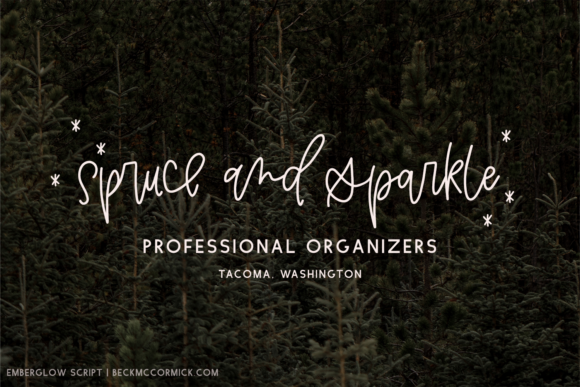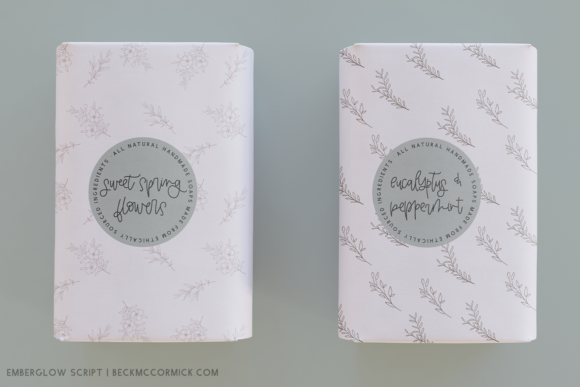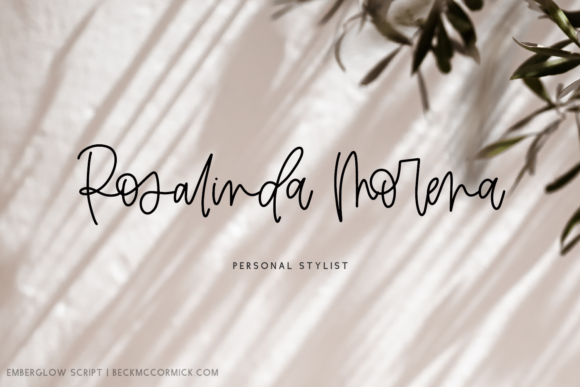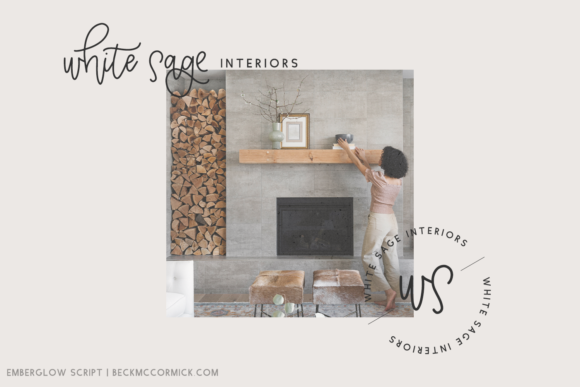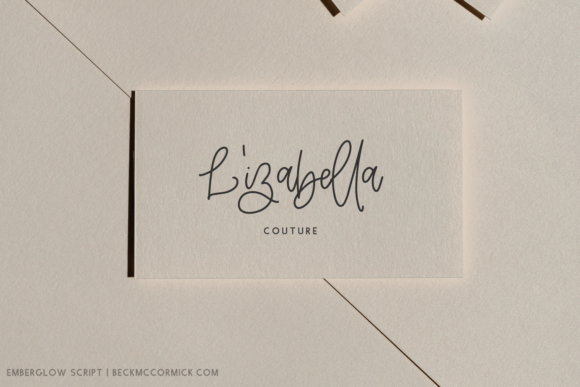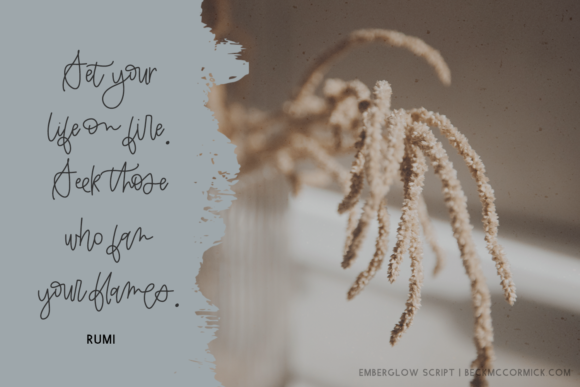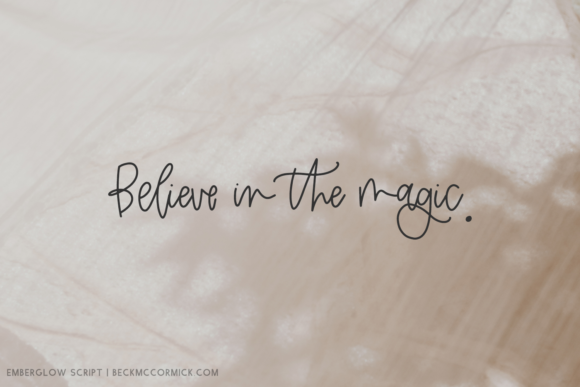
Emberglow Font
About Emberglow Font
Emberglow is a lovely and delicate script font. Add this asymmetrical and delicate font to each of your favorite projects and notice how easily they come to life.